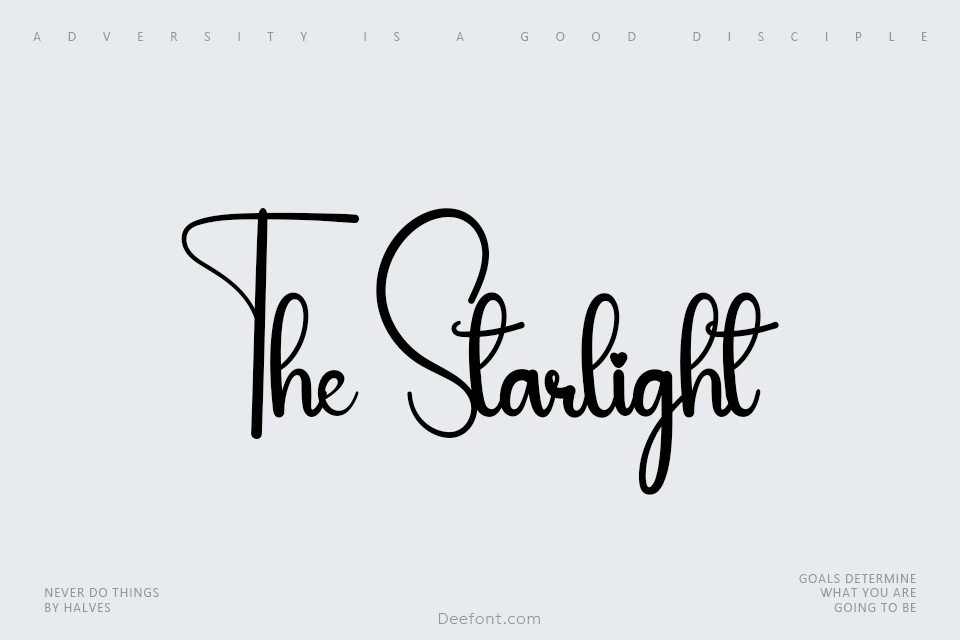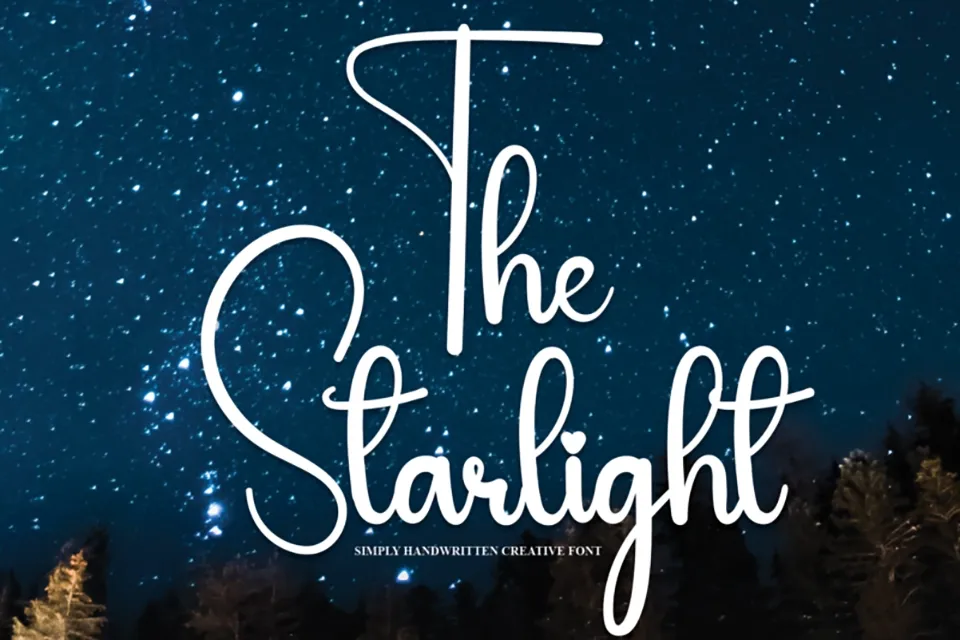
The Starlight Font
The Starlight Font is a charming handwritten script that radiates warmth and creativity. Its playful, flowing letterforms and elegant swashes make it perfect for projects that need a personal, inviting touch, such as wedding invitations, greeting cards, and branding. The font’s smooth curves and balanced design ensure excellent readability while adding a whimsical flair to any text. The Starlight Font captures the magic of handwritten notes, making your designs feel unique and heartfelt. With its friendly character and versatile style, this font is ideal for anyone looking to add a touch of sweetness and personality to their creative work.